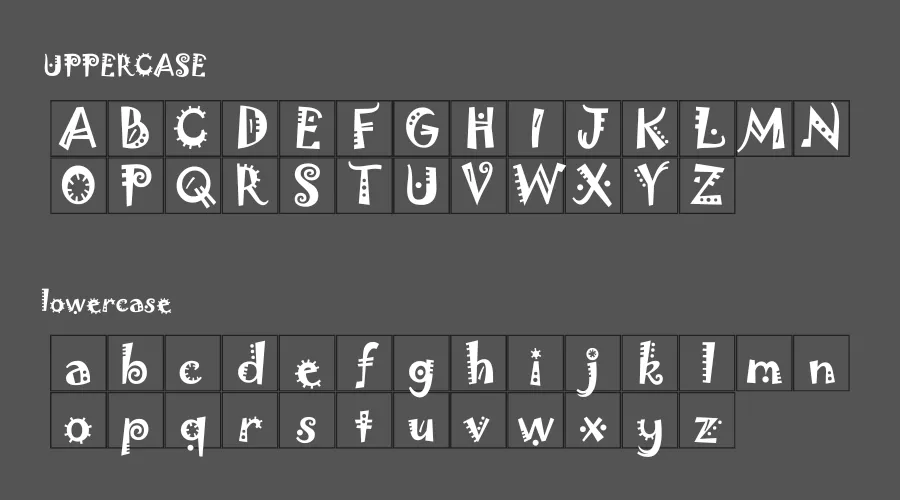
Jokerman Font
About Jokerman Font
Jokerman Font is a decorative style created by Andrew K. Smith. This adorable typeface adds a dash of flare to any design phase and is ideal for writing sophisticated, theatrical titles.
The font’s elaborate and decorative embellishments make it perfect for making bold graphics. This wonderful typeface was made available to the public. For CSS and SVG, this charming typeface works best. This gorgeous typeface is comparable to Stay Alive Font.
There are capital and lowercase letters, digits, and exclamation points accessible in this warm typeface. Furthermore, it enables several dialects. This lovely font is a fantastic option for making graphics that are unique and appealing.
Numerous creative tasks, including promotional products, headers, captions, trademarks, and marketing, can benefit from the usage of this potent font.
Webpages, blogging, banners, pamphlets, and packaging design are just a few of the things you may utilize it for if you’re a talented designer.
This font family has been used extensively by graphic and text designers for a variety of purposes, including journal headlines, posters, textbook covers, among many more.
You can use this font for your upcoming projects. Another Special Elite Font is used in conjunction with this typeface when making pairings.
The finest applications for this design are formal projects like company logo, coupons, graphic designs, and many more. Therefore, if you need to perform any type of formal job, this Typeface is the finest option.
Name Jokerman Font
Designer Andrew K. Smith
Style Decorative
• Jokerman Regular
Which Jokerman font type is Font?
Logographic typeface with a natural appearance is the font. Andrew K. Smith is the designer of this inspired typeface. It is a part of the Decorative font family.
The best Jokerman font for my logos?
This typeface is excellent for use in logo design. It may be used to design distinctive and fashionable logos for your company or small projects.